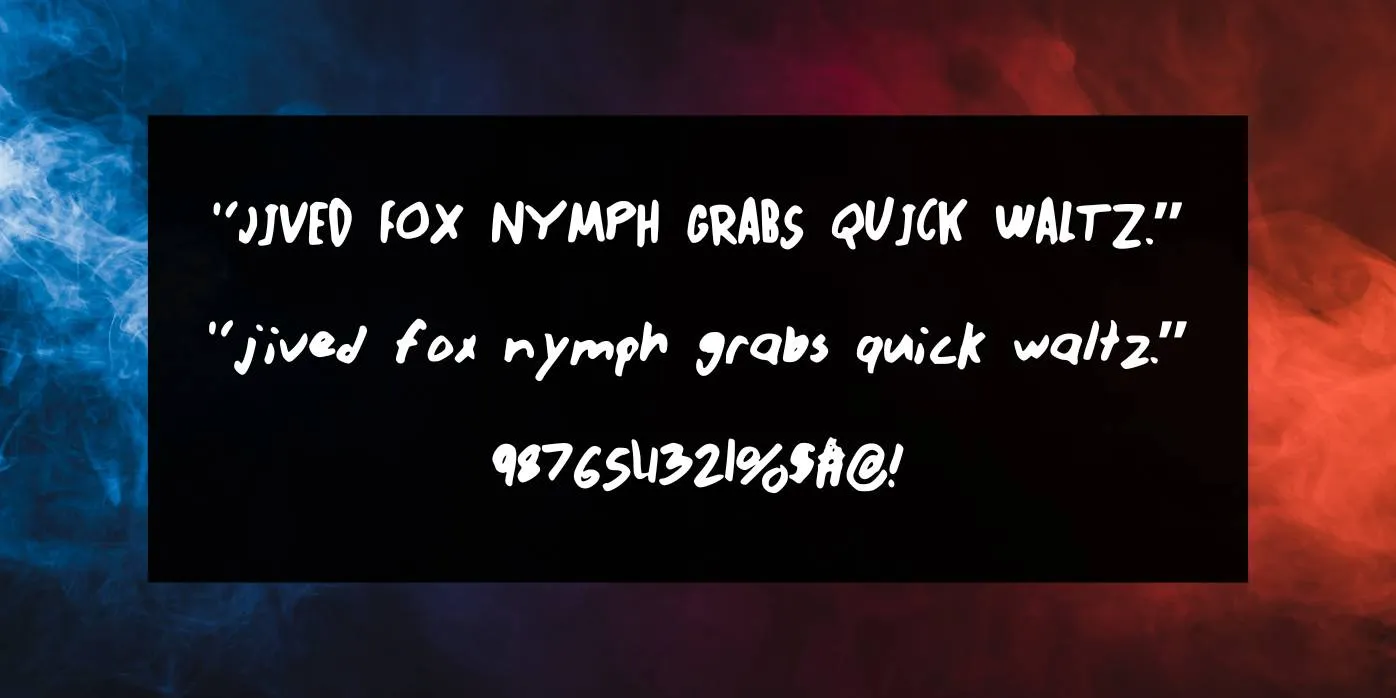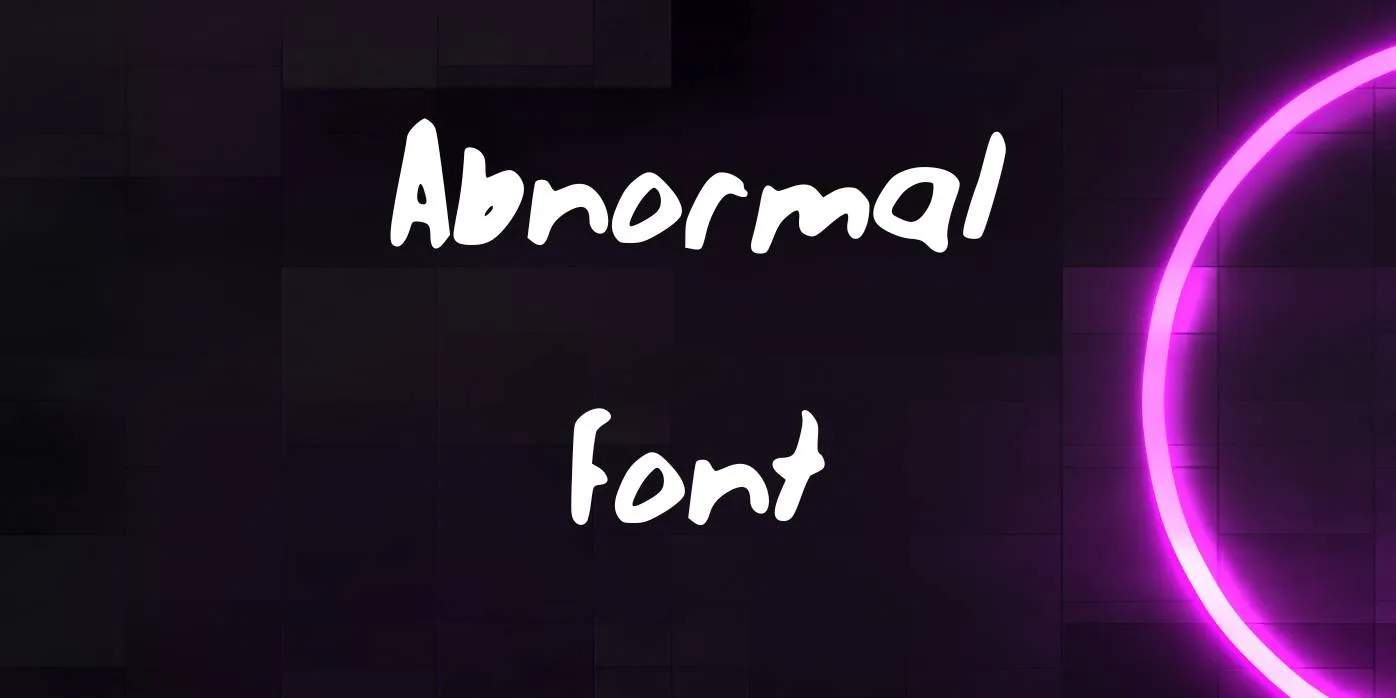
Abnormal Font
Abnormal Font is a handwritten type of font. AtomicAcid is the designer of this texture. There are 143 amazing glyphs for this typeface. The online generator tool will convert your simple text into the text of this typeface.
The resultant text will be in various types of styles, shapes, and colors. The copy-paste function for this tool is very beneficial. There are 42 special characters supported by this font. This is a flexible font that has a wide range of applications in many projects.